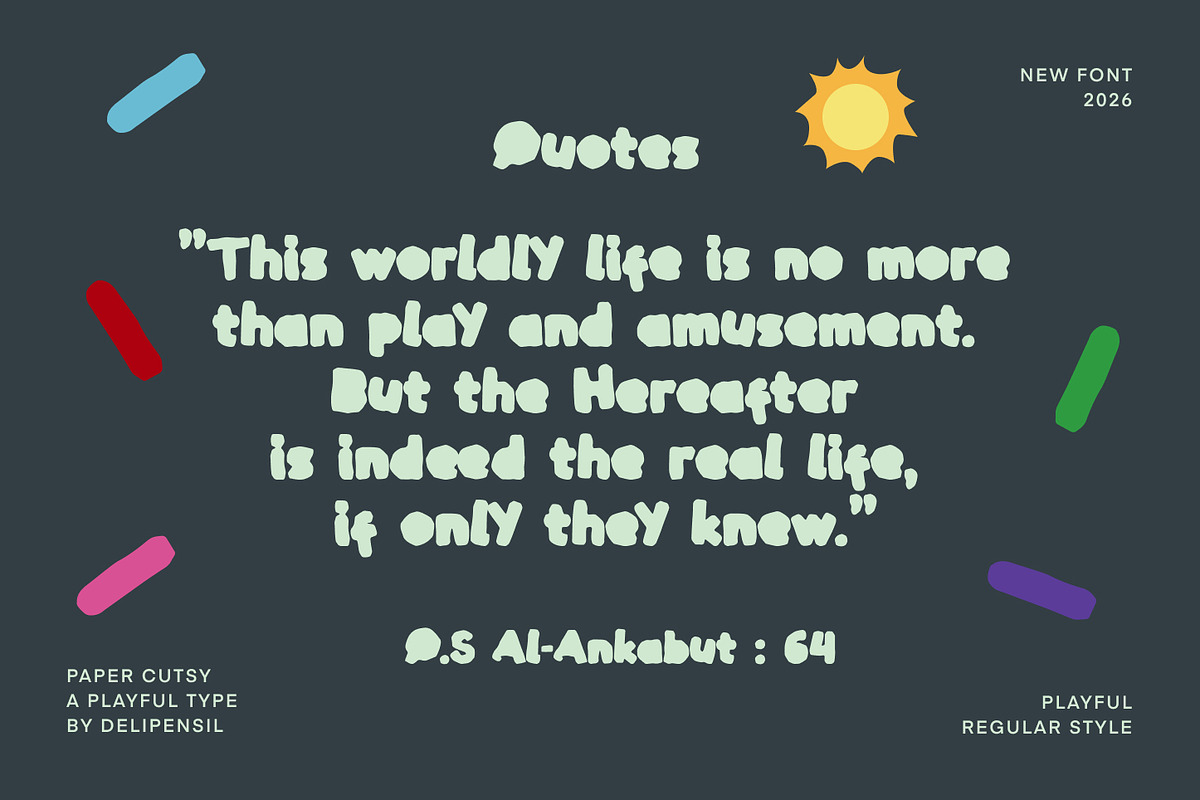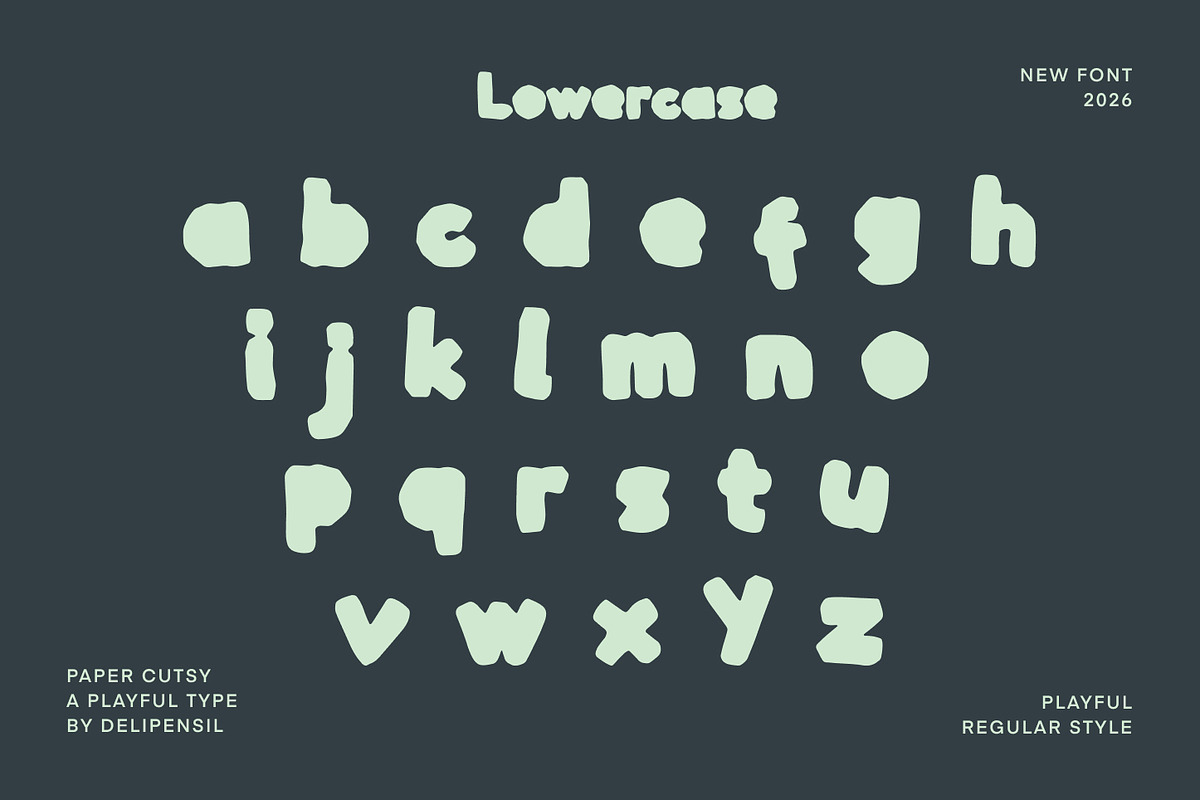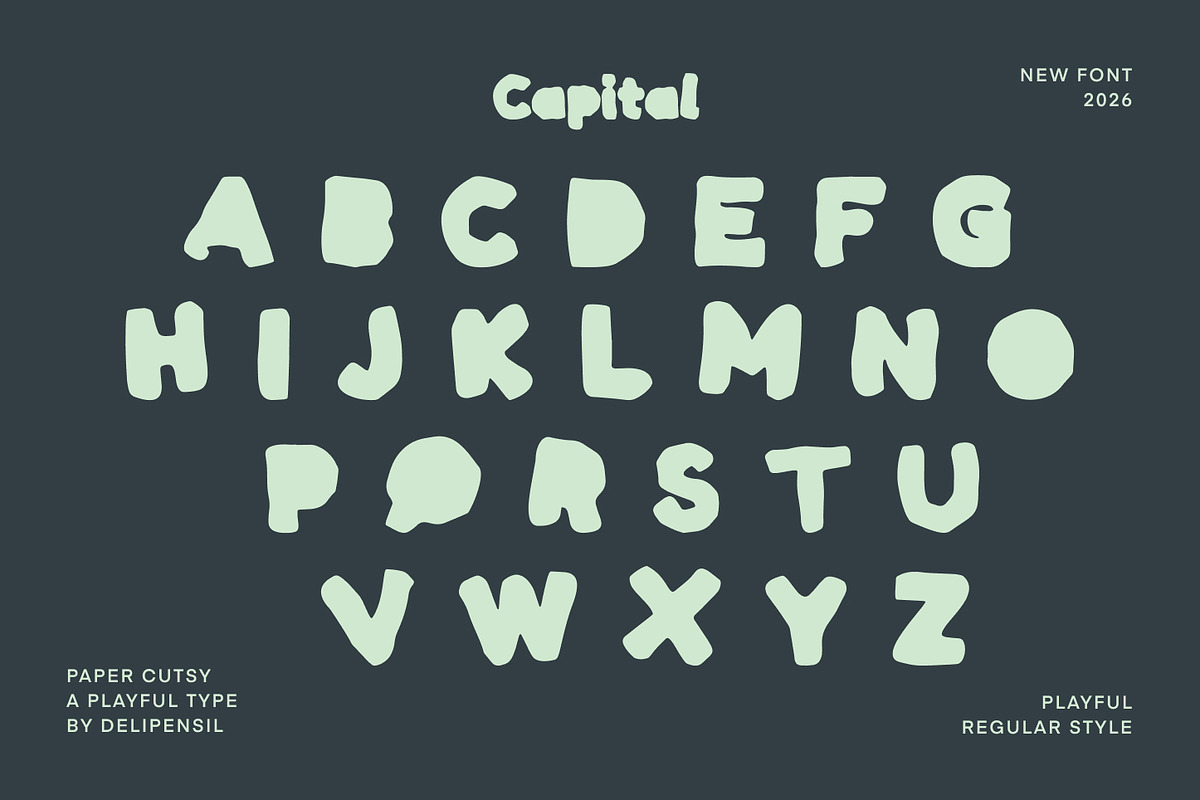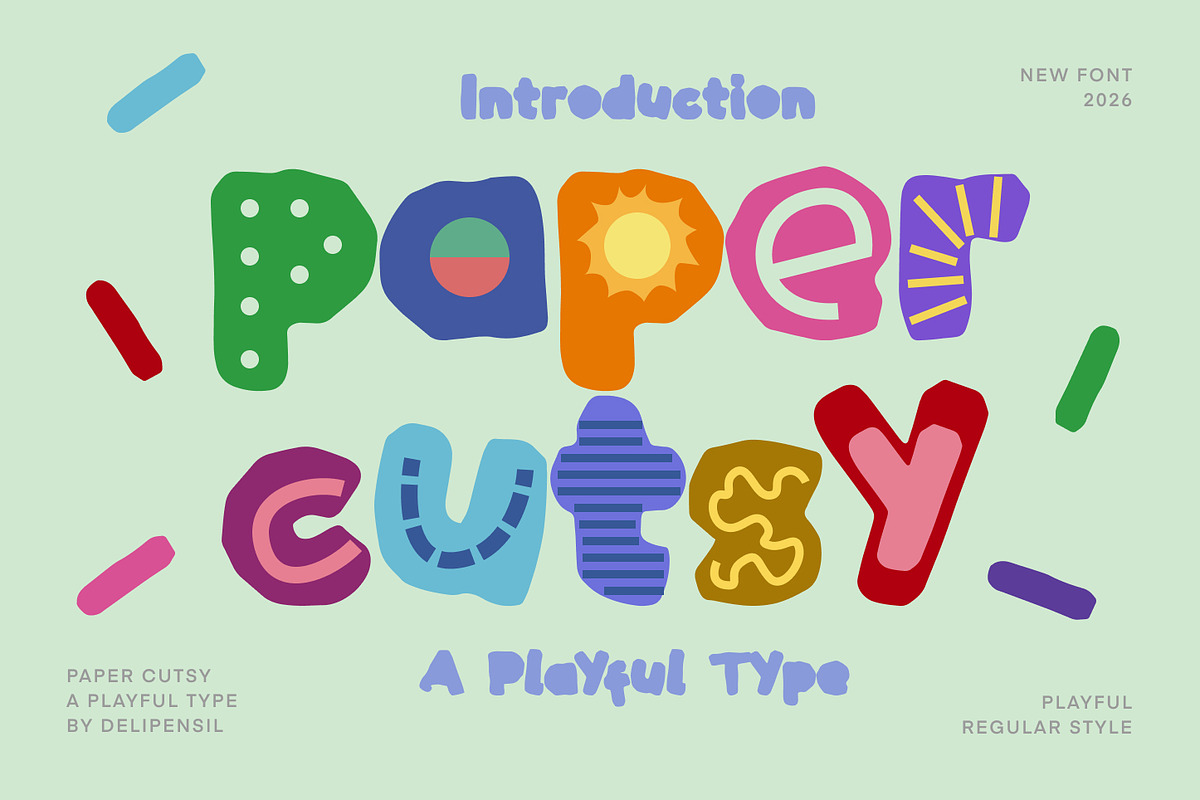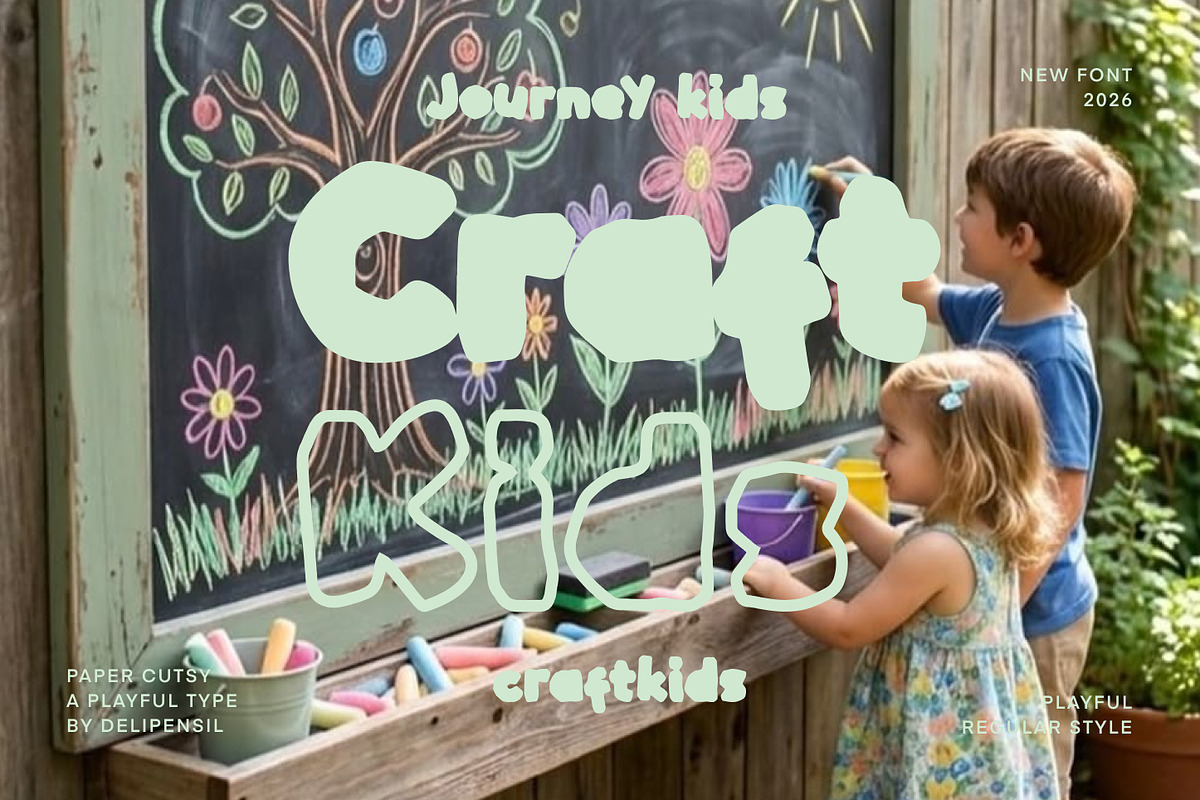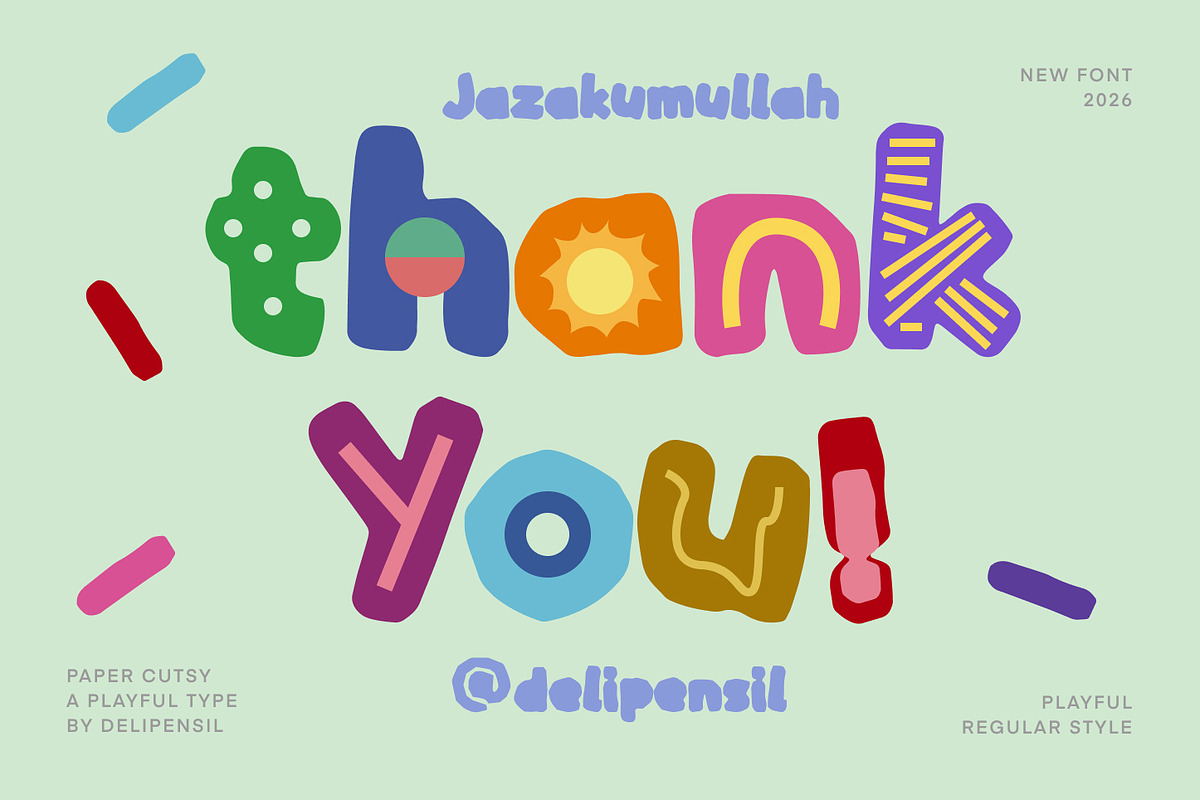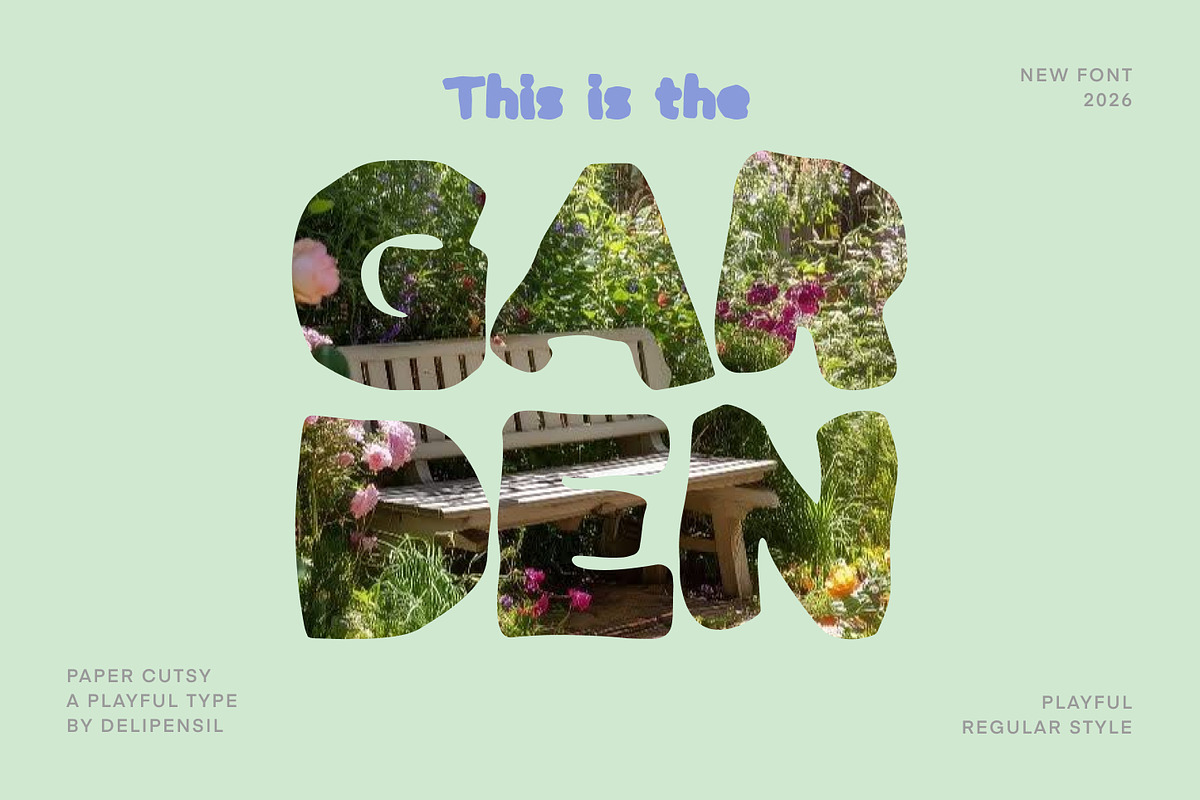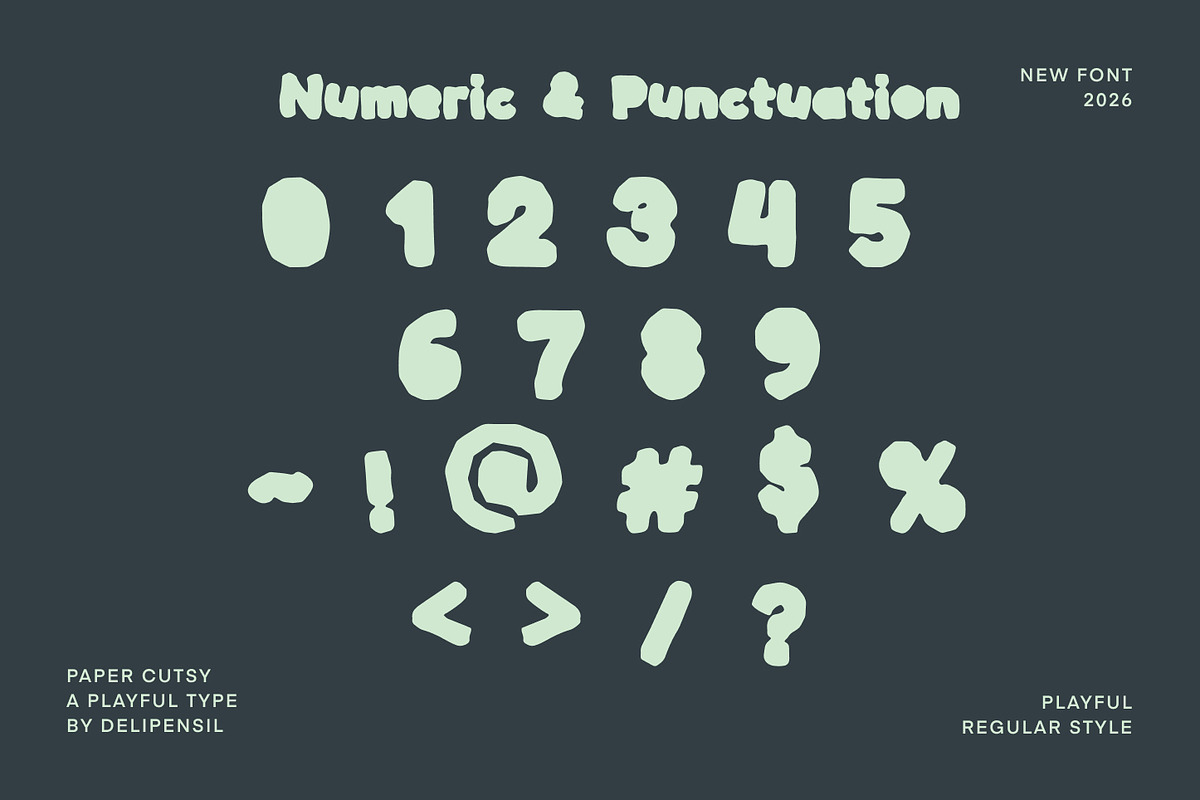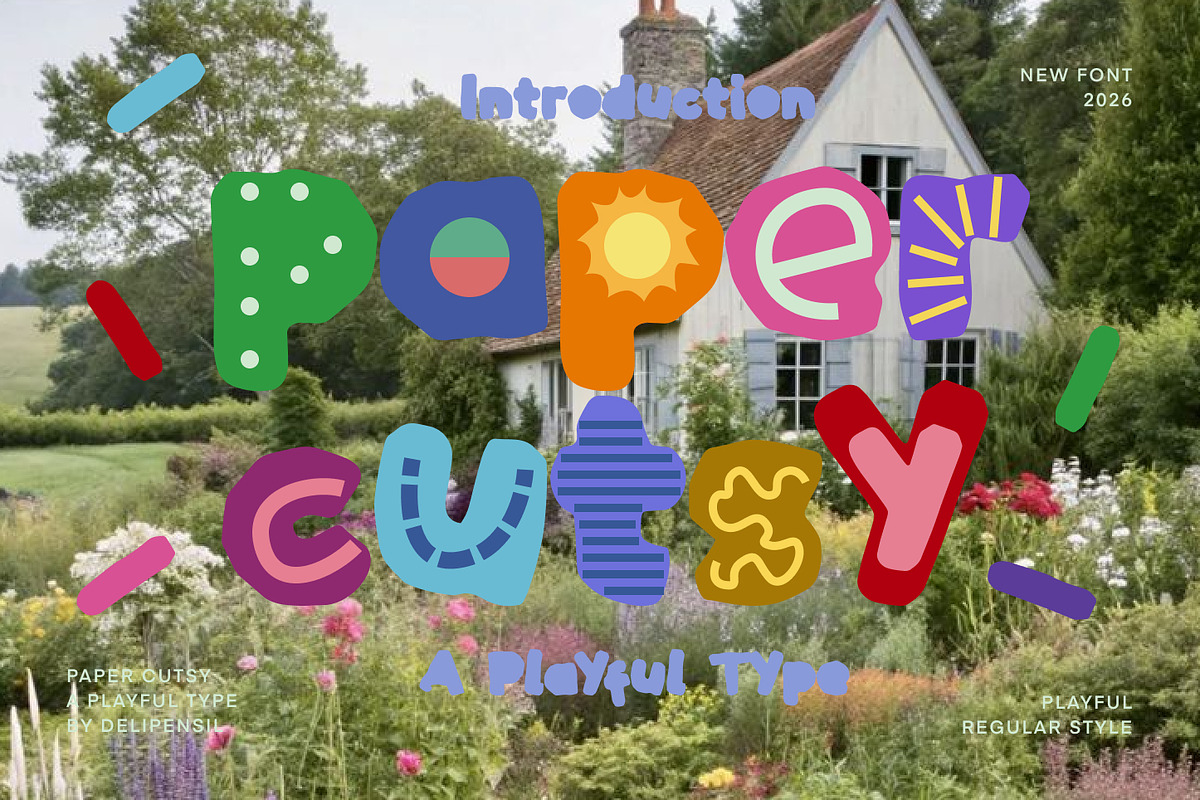
Paper Cutsy - A Papercut Type
Bismillah Introduction Paper Cutsy is a cute and playful handwritten font inspired by paper crafts, doodles, and childhood creativity. With its charming letterforms and natural hand-drawn feel, this font brings warmth, fun, and personality to every design.
Perfect for children’s books, school projects, classroom materials, birthday invitations, playful branding, packaging, social media graphics, posters, stickers, and creative craft projects.
Whether you’re designing for kids or simply want to add a cheerful handmade touch, Paper Cutsy delivers a delightful and friendly look that stands out effortlessly.
Add a touch of handmade happiness to your next project with Paper Cutsy!